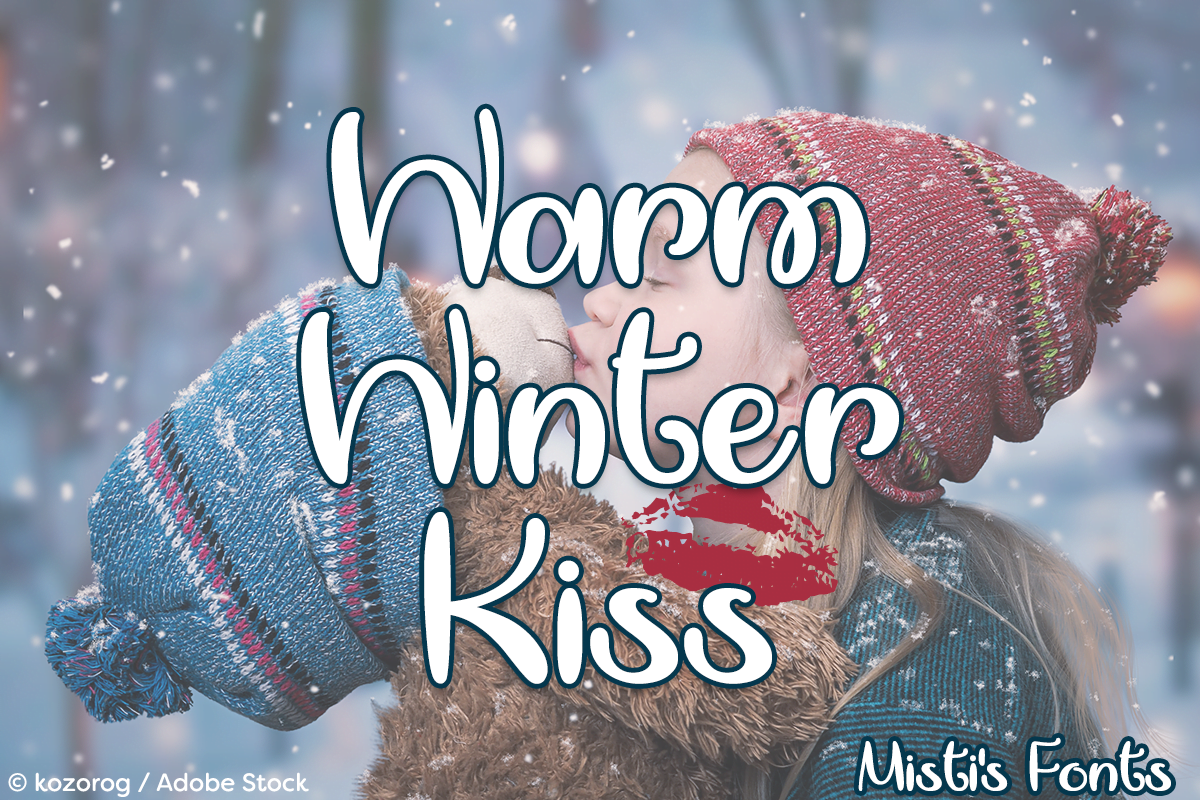
Warm Winter Kiss
Warm Winter Kiss is a friendly handlettering font that will add fun & whimsy to your projects!
Special Symbols
Type * (asterisk) for the kiss